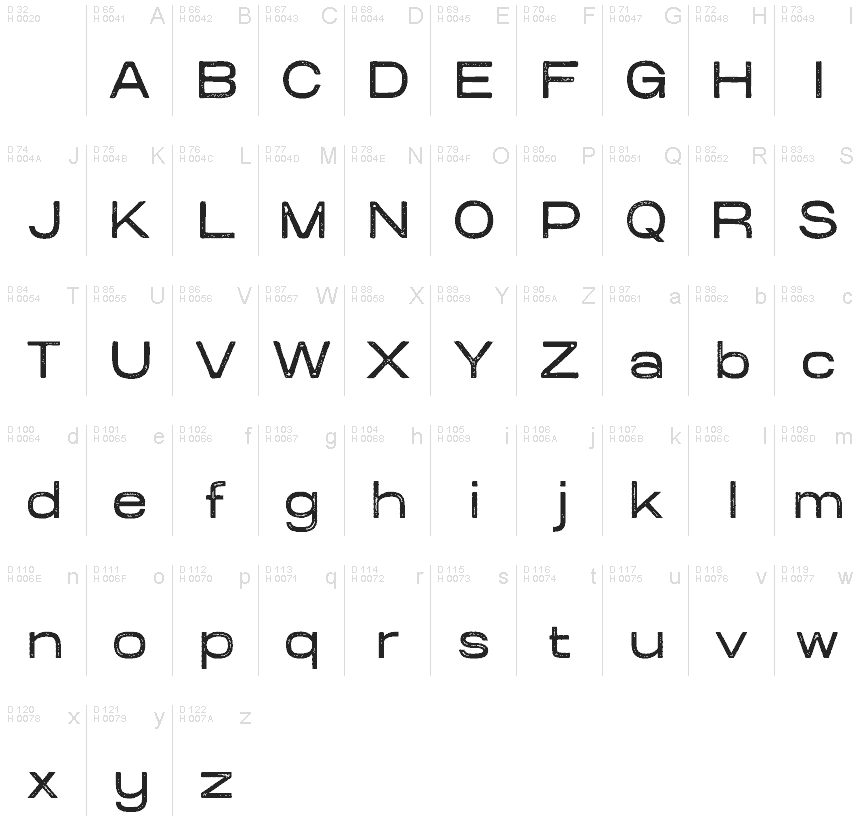
Rolide Vintage Demo Stamp
Rolide Vintage Stamp font by Craft Supply Co is a display typeface with an eroded look that demands attention. It is expanded in width and has retro-inspired shapes with perfect geometric influences. And while it is casual in its own way, the vintage aesthetic still stands out to each viewer through its artistic appeal.